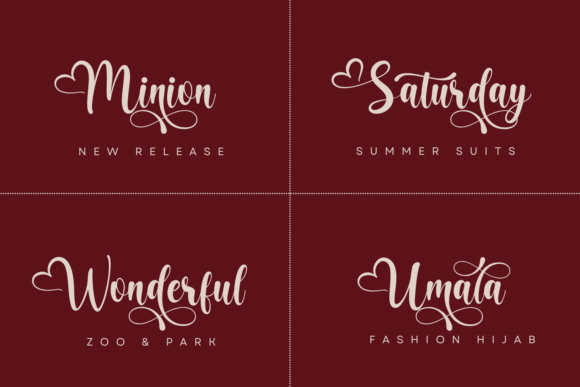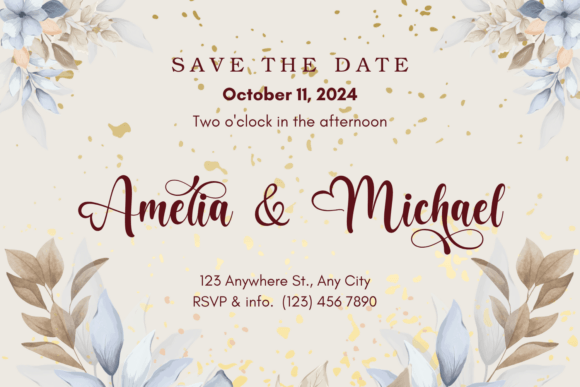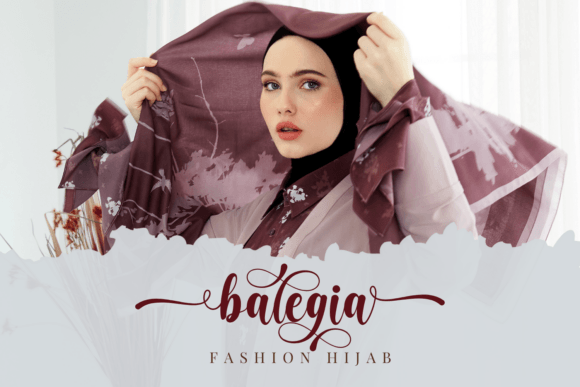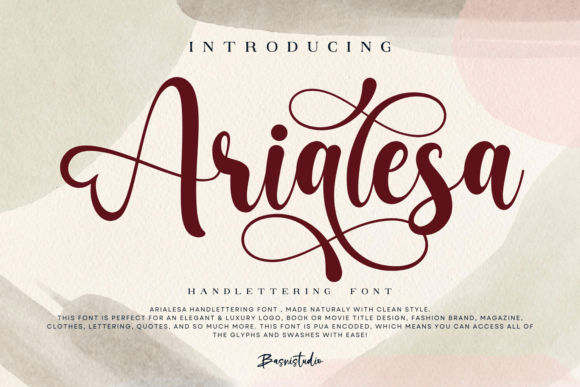
Introduction to Arialesa Font
Arialesa Handlettering Font, made with Natural & Clean Style.
This Font is perfect for an elegant & luxury logo, book or movie title design, fashion brand, magazine, clothes, lettering, quotes, and so much more This font is PUA encoded, which means you can access all of the glyphs and swashes with ease.
Key Features of Arialesa Font
Why Choose Arialesa Font?
Arialesa Font offers exceptional quality and versatility, making it a valuable addition to your design toolkit. Whether you’re creating for personal projects or commercial use, Arialesa Font delivers professional results.